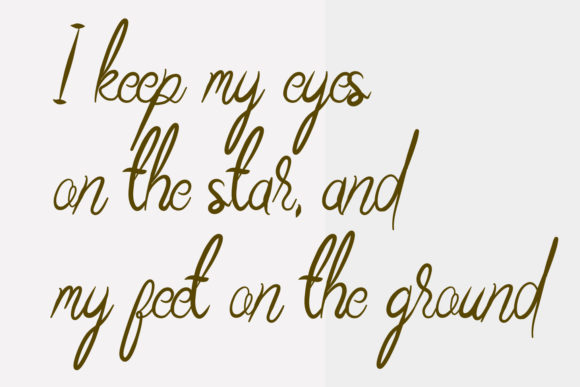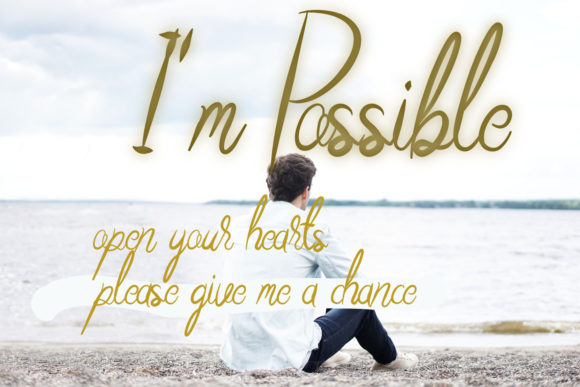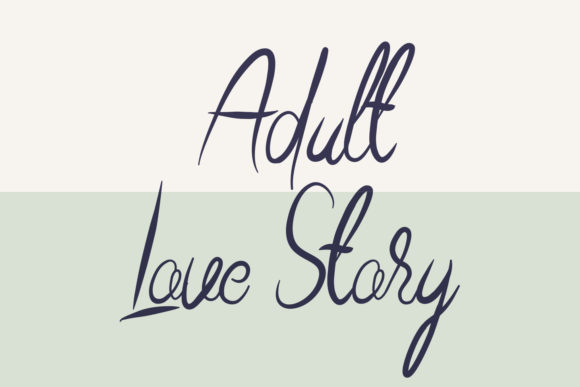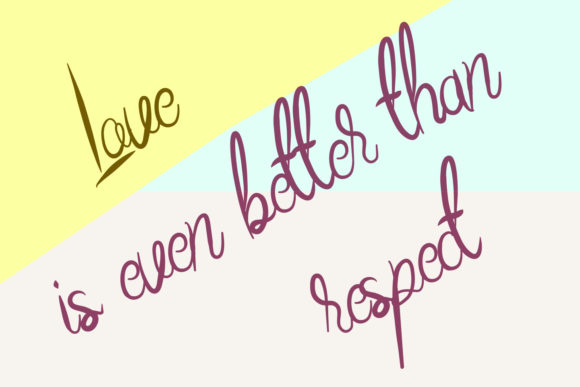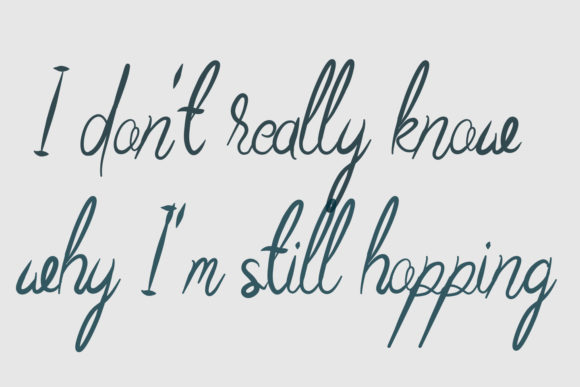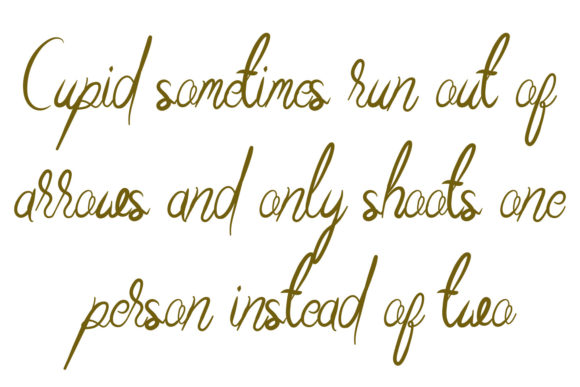
Introduction to Indianapolis Font
Imagine you’re brainstorming a creative project, and the perfect font is just out of reach. You’ve searched high and low, but nothing seems to capture the essence of your design. This is where the Indianapolis Font comes in – a beautiful script calligraphy with a modern twist that’s sure to elevate your work to new heights.
Whether you’re a seasoned designer or just starting out, the Indianapolis Font is a valuable addition to your toolkit. Its versatility makes it perfect for a wide range of applications, from branding and headings to wedding designs, invitations, and even signatures. With its modern style and high-quality design, this font is sure to make a lasting impression.
Key Features of Indianapolis Font
- Unique blend of modern and vintage elements, perfect for creative projects requiring a touch of nostalgia.
- Includes 6 styles: Regular, Italic, Bold, Bold Italic, Outline, and Shadow, offering versatility for various design needs.
- Designed to be used at any size, with optimal results at 24pt and above, making it suitable for a wide range of creative projects.
- Perfect for use in logos, headings, and body text, due to its clear and readable design.
I recently had the chance to work with the Indianapolis Font on a creative project and I must say, it’s been a pleasant experience. The font is a beautiful addition to any design, offering a perfect blend of modernity and elegance.
However, I did encounter a few limitations. The font doesn’t have a large character set, which can be a drawback for designers who need to work with a wide range of characters. Additionally, the font’s style may not be suitable for all types of design projects.
Overall, I’m impressed with the Indianapolis Font and would definitely recommend it to designers who are looking for a high-quality, versatile font for their creative projects. With its transparent background option and free download, it’s a great design resource that’s hard to pass up. Just be aware of the limitations mentioned above. ✨⚠️